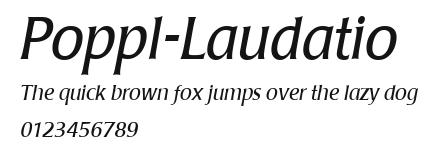
About Poppl-Laudatio.ttf
Poppl-Laudatio.ttf is a modern, elegant sans-serif font designed for ultimate readability and visual harmony. Perfect for branding, headlines, web design, and print materials.